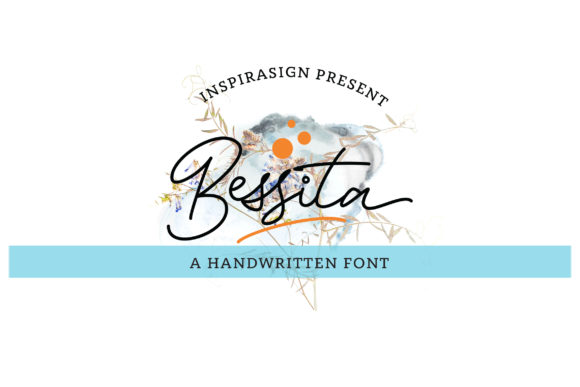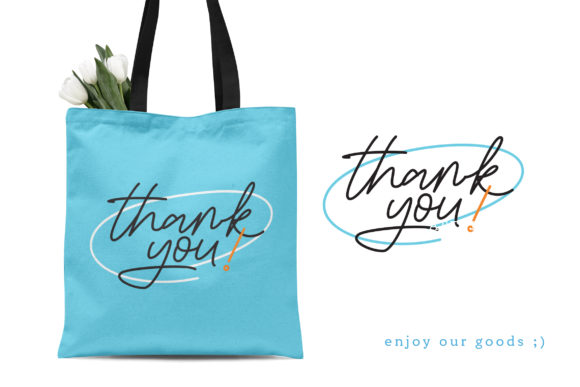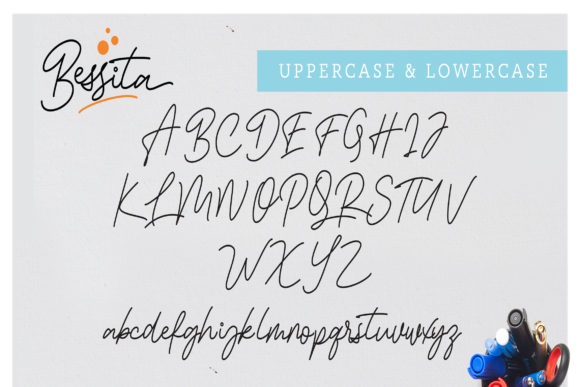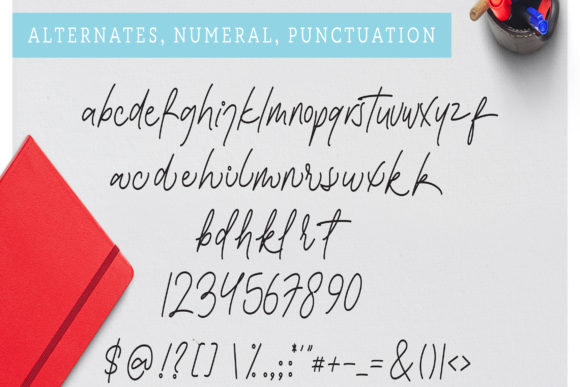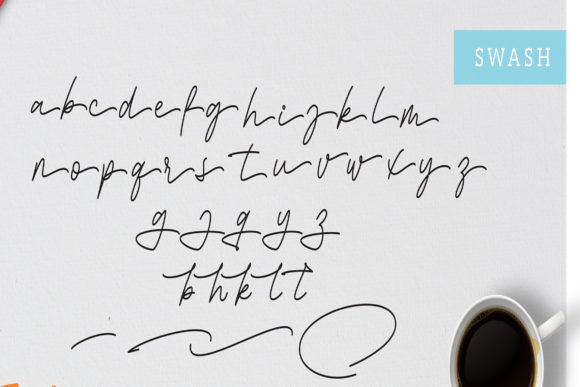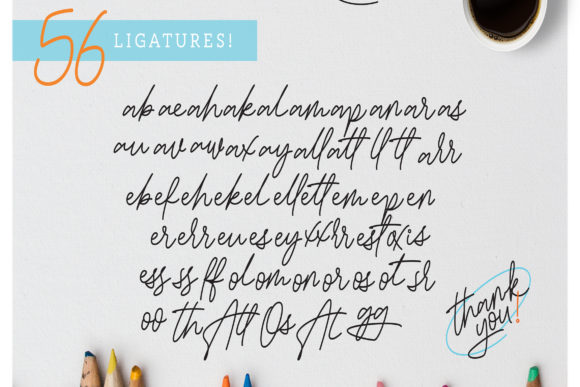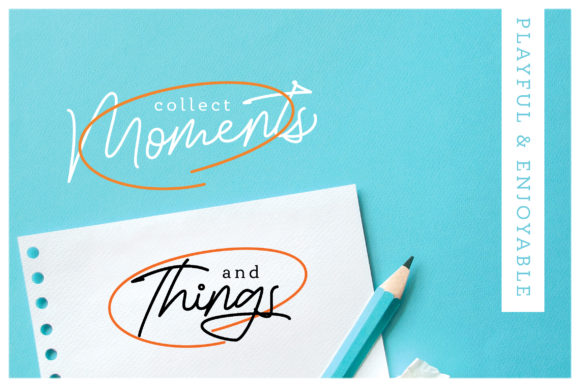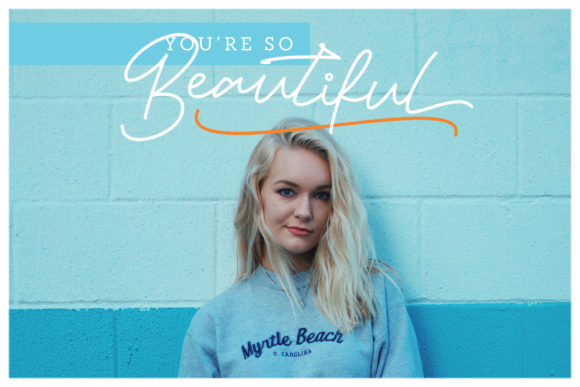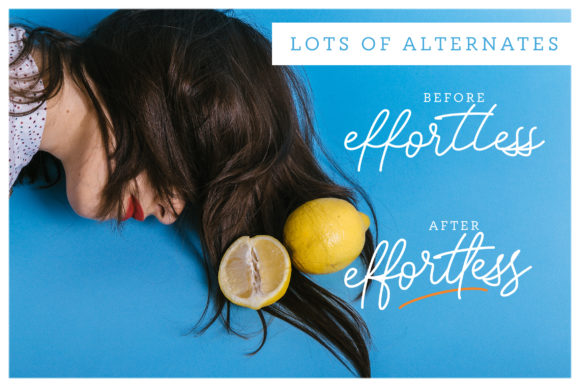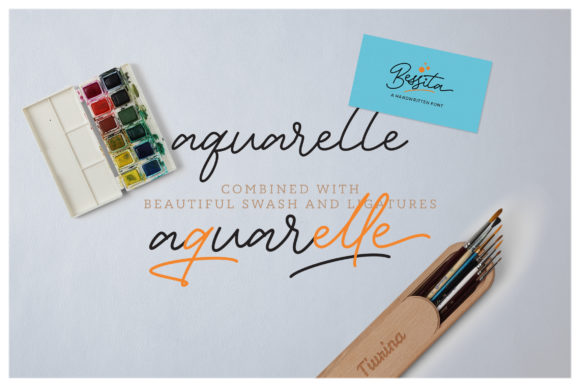
Bessita Font
About Bessita Font
The Bessita is a classic handwriting font. It includes an elegant style and is perfect for adding a classy touch to your designs.
It can be used for logos, letterheads, posters, apparel, labels, and much more!